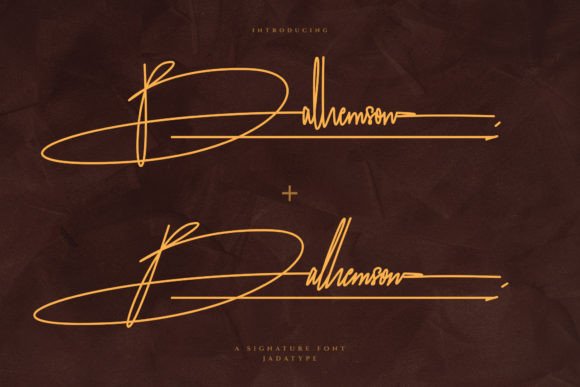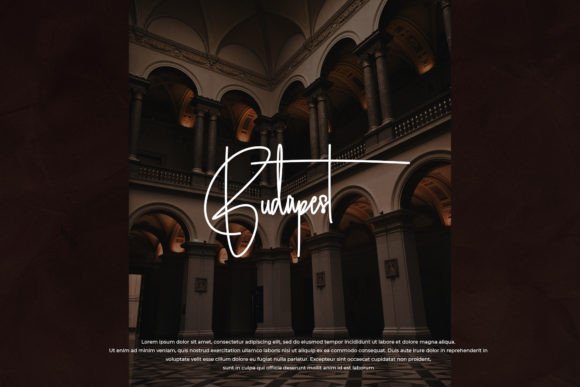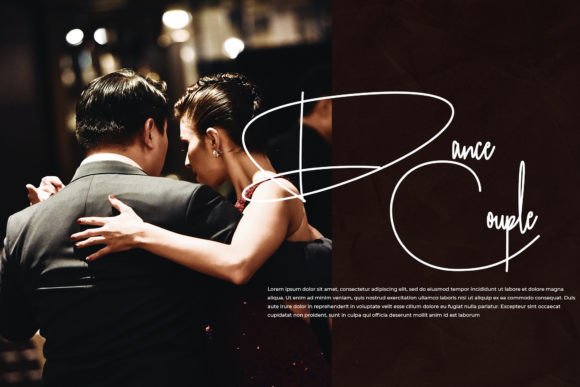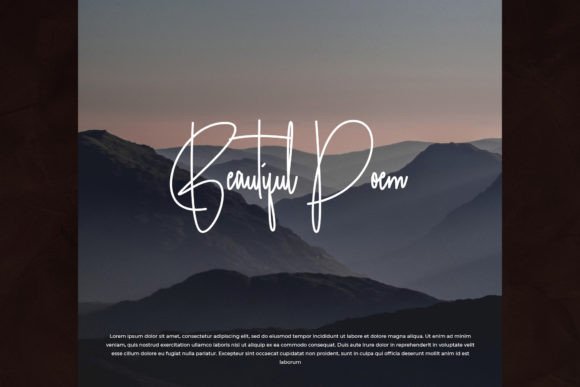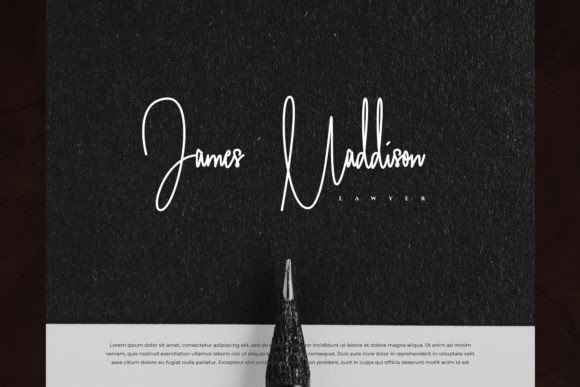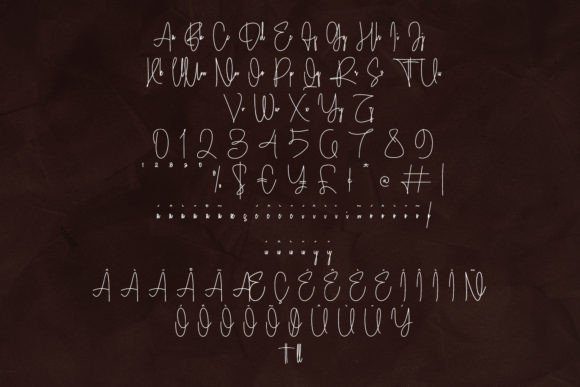
The Art of Signature Style: Introducing the Balhemson Font
Have you ever been struck by the elegance of a handwritten signature? The way the pen glides effortlessly across the paper, leaving behind a trail of smooth curves and flourishes that seem to dance across the page? For designers, capturing that essence is a holy grail – and that’s where the Balhemson Font comes in.
This beautifully crafted handwritten font embodies the spirit of signature style, with its smooth lines and fluid connections making it perfect for business cards, logotype, branding, posters, and so much more. Whether you’re a seasoned designer or just starting out, the Balhemson Font is an invaluable addition to your toolkit, offering a level of sophistication and elegance that’s hard to find elsewhere.
With its versatility and timeless appeal, the Balhemson Font is sure to become your go-to choice for any project that requires a touch of personality and flair.
Balhemson Font Key Features
- Font Family: Balhemson Font is a custom font family, designed for unique and elegant typography.
- Unique Characteristics: Balhemson Font features intricate details, ornate flourishes, and subtle texture, making it perfect for luxury, high-end, and sophisticated designs.
Designer Review: Balhemson Font
As a designer, I was excited to dive into the Balhemson Font and see what it had to offer. ✨ Here are some things that worked well for me:
- Unique Character Set: The Balhemson Font has a distinct character set that adds a touch of elegance to any design.
- High-Quality Glyphs: The font’s glyphs are crisp and well-defined, making it perfect for printing and digital use.
- Excellent Legibility: The font’s legibility is top-notch, making it easy to read even at small font sizes.
However, I did encounter some limitations that held me back from giving it a perfect score: ⚠️
- Limited Language Support: Unfortunately, the Balhemson Font only supports a limited number of languages, which might be a concern for designers working on international projects.
- Not Ideal for Body Text: While the font works well for headings and titles, it’s not the best choice for body text due to its relatively small character set and limited line spacing options.
Overall, the Balhemson Font is a solid choice for designers looking to add a touch of sophistication to their projects. While it has its limitations, its unique character set and high-quality glyphs make it a great option for certain design applications.
Tips for Getting the Most Out of Balhemson Font
Use Balhemson font for titles, headings, and emphasis in your designs. Pair it with a clean and modern sans-serif font for body text. Experiment with different font sizes and colors to create visual hierarchy and contrast.
Balhemson font is ideal for:
- Brand logos and identity design.
- Marketing materials and promotional campaigns.
Is Balhemson Font available in any OpenType features or ligatures?
Yes, Balhemson Font includes a range of OpenType features and ligatures to enhance its typographic capabilities. These features include stylistic sets, swashes, and contextual alternates. To access these features, ensure that your design software supports OpenType and